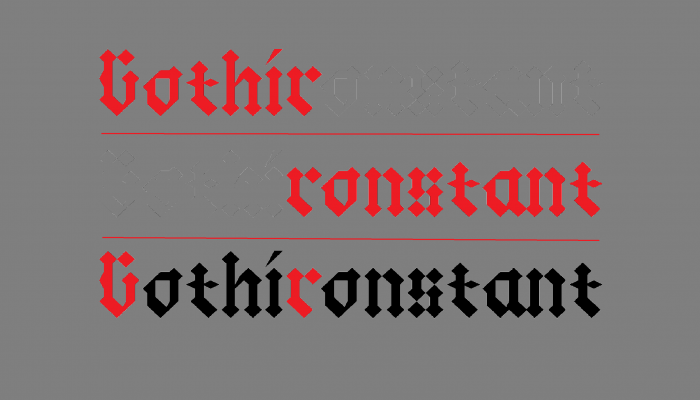
Wow! Love it.
definitely best gothic
Very original, love it!
Interesting interpretation. But ascender-less f is unreasonable and confused with e.
I really like this one.  I think it needs more work, but you are headed in the right direction.  I would make the f taller & maybe look at the h harder, myself, but that's your decision.  Really like it, nevertheless.